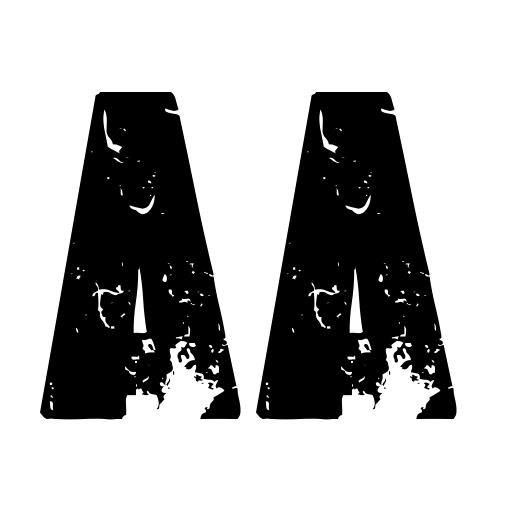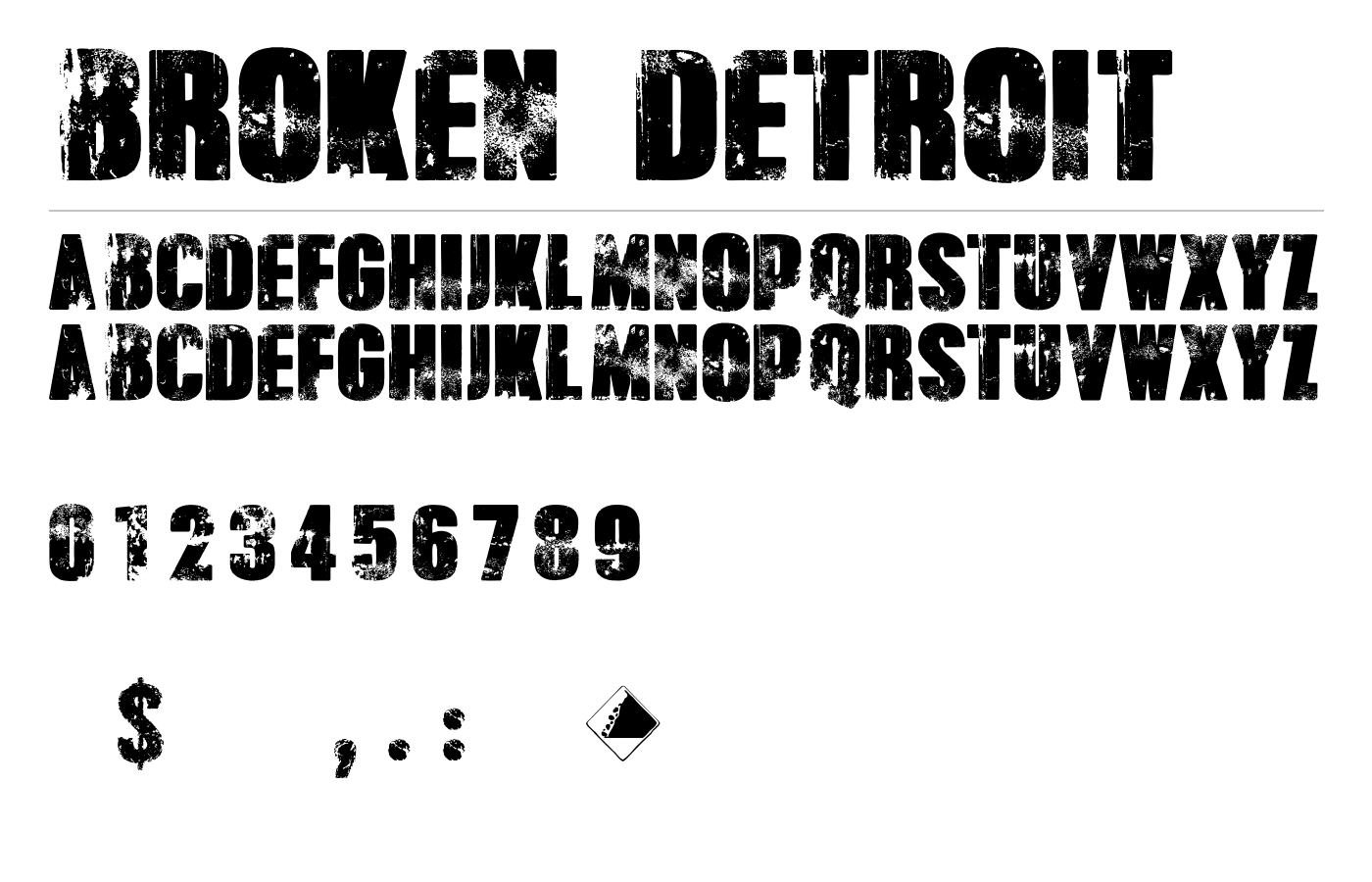
Broken Detroit is a bold, condensed sans serif display font with a gritty, distressed texture that gives it a raw, urban edge. Its strong, blocky letterforms combined with rough, worn details make it perfect for creating impactful headlines or branding that convey toughness, rebellion, or street-style vibes. This font works best for posters, logos, and designs needing a bold statement with a rugged, industrial feel.
Broken Detroit Font
About Broken Detroit Font